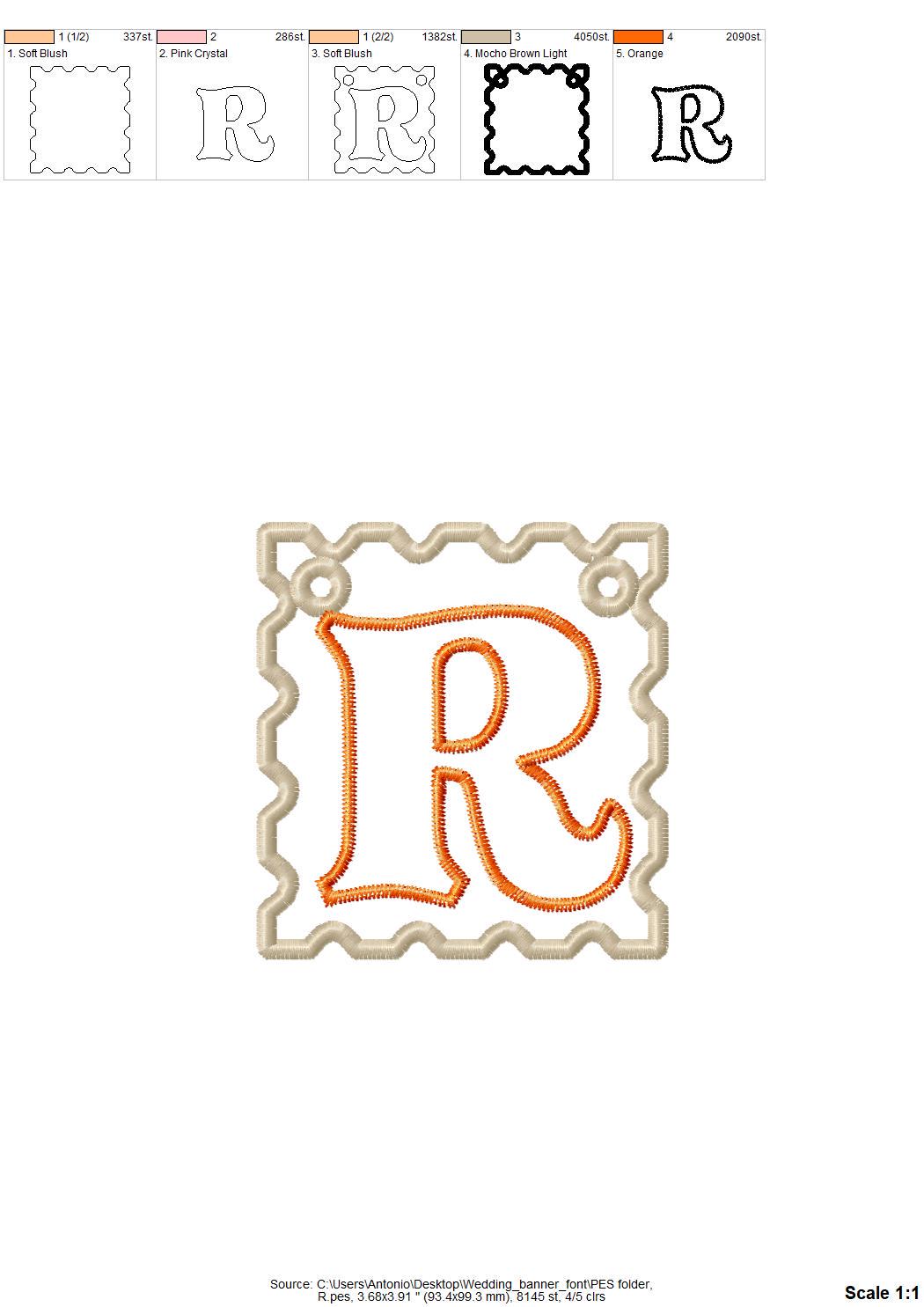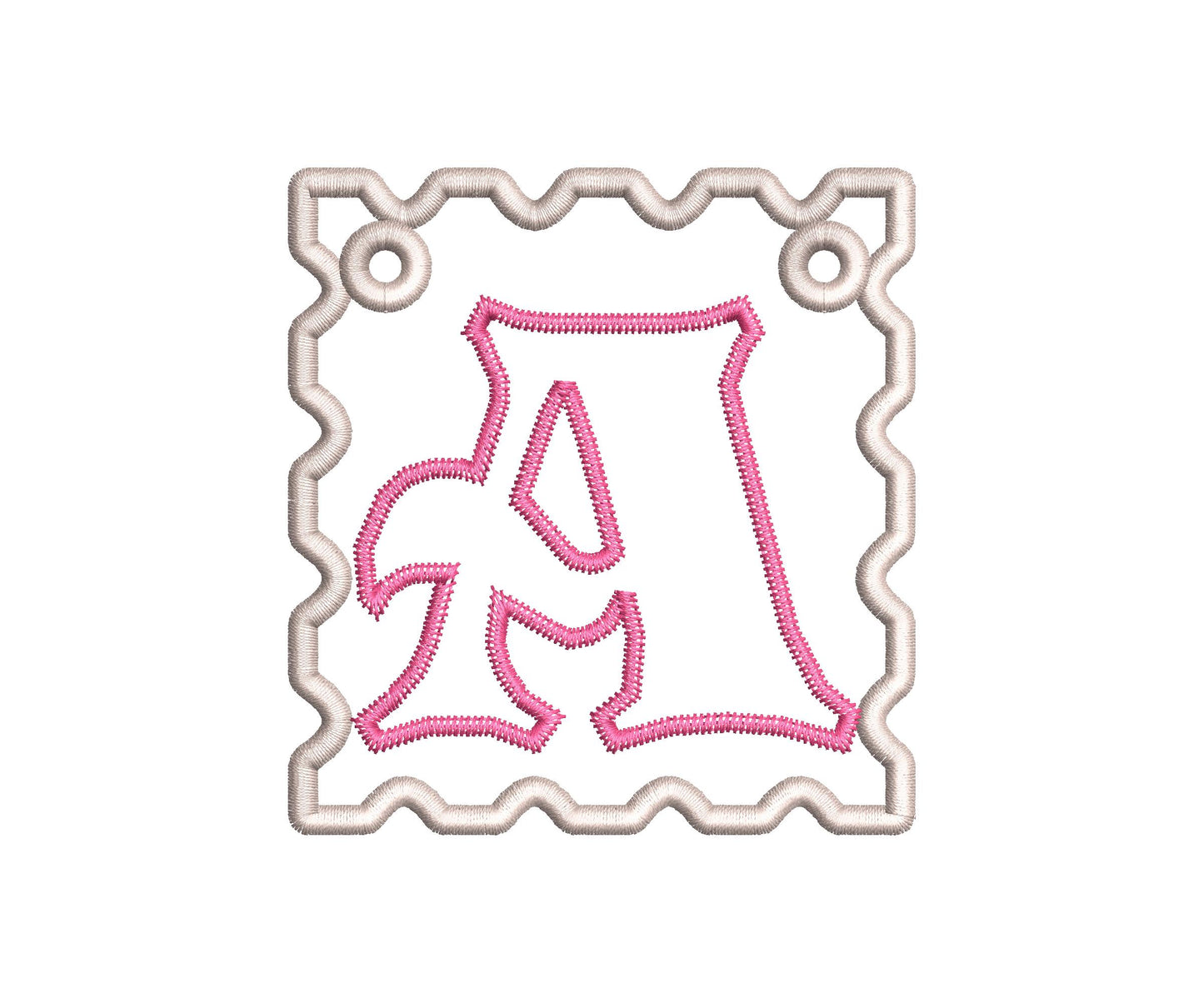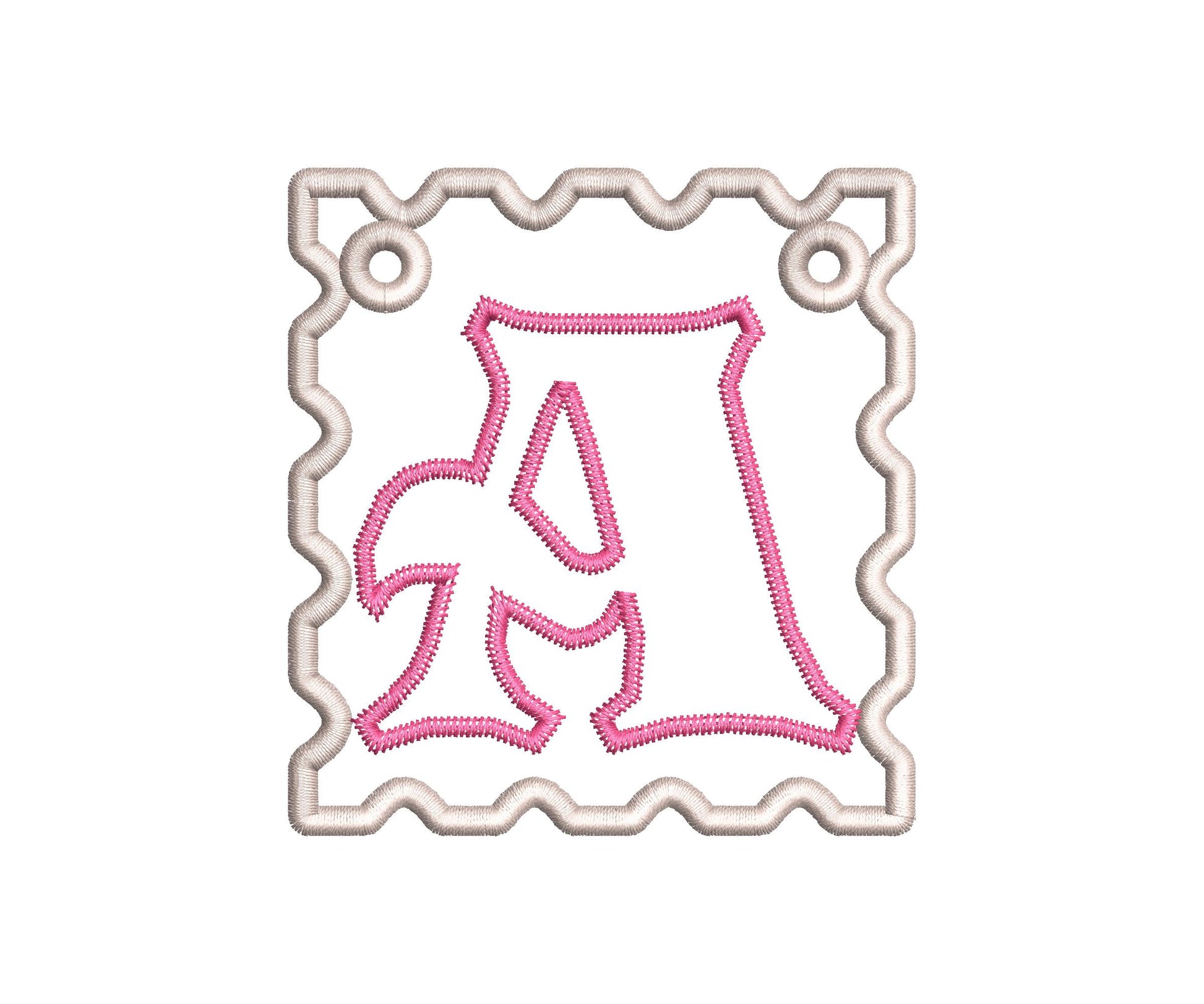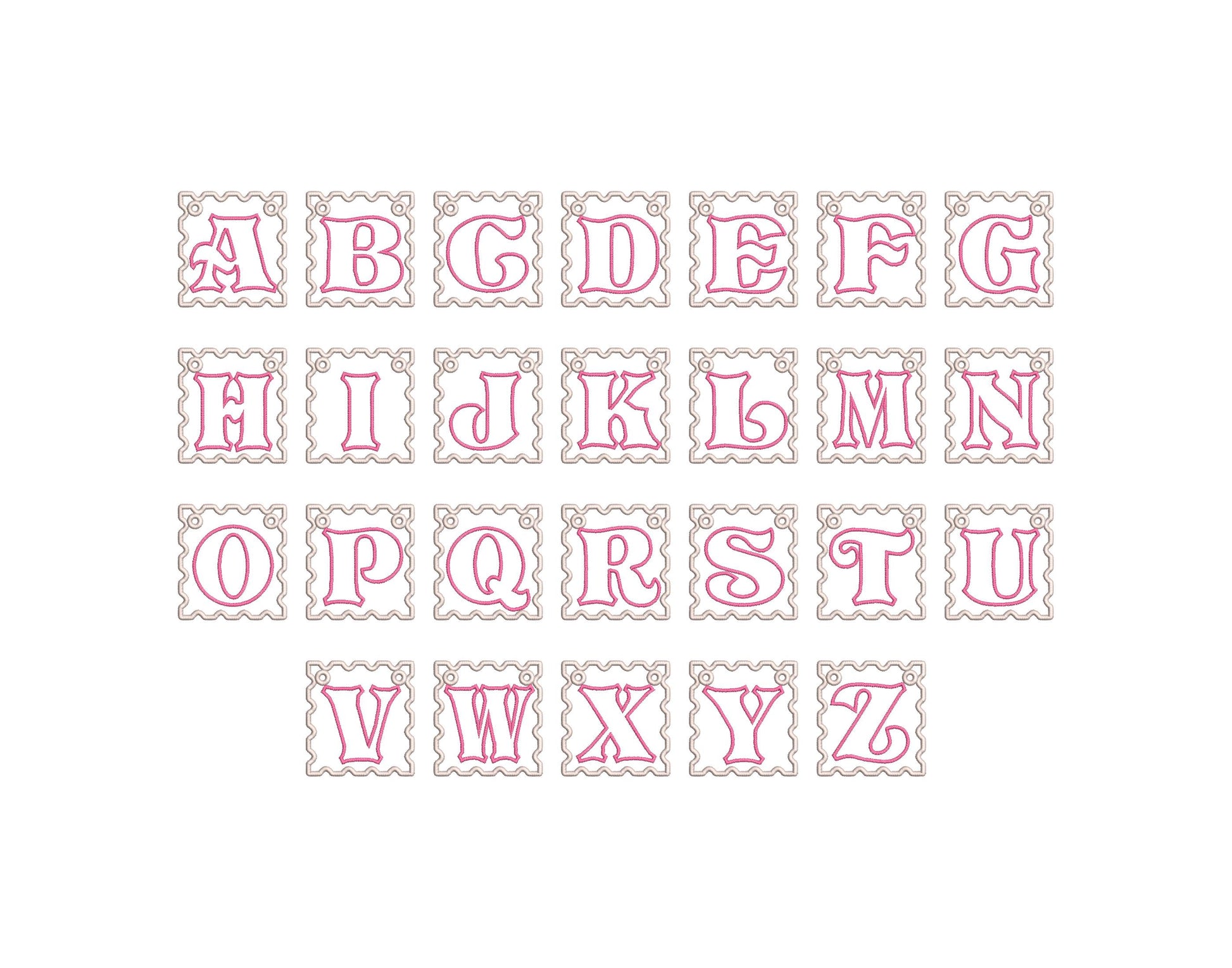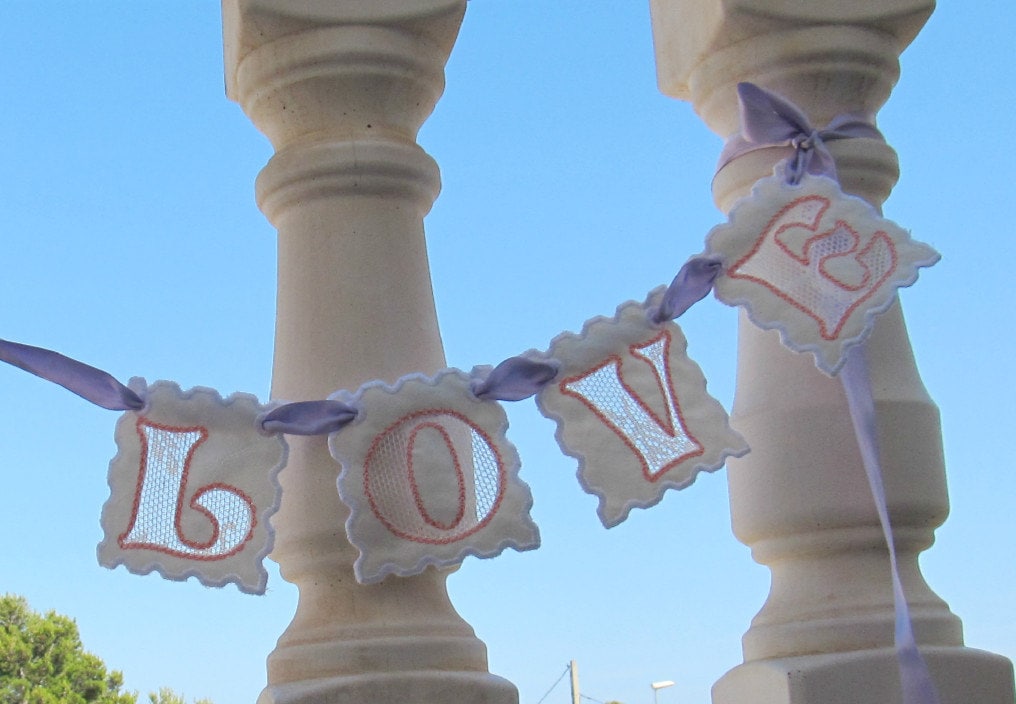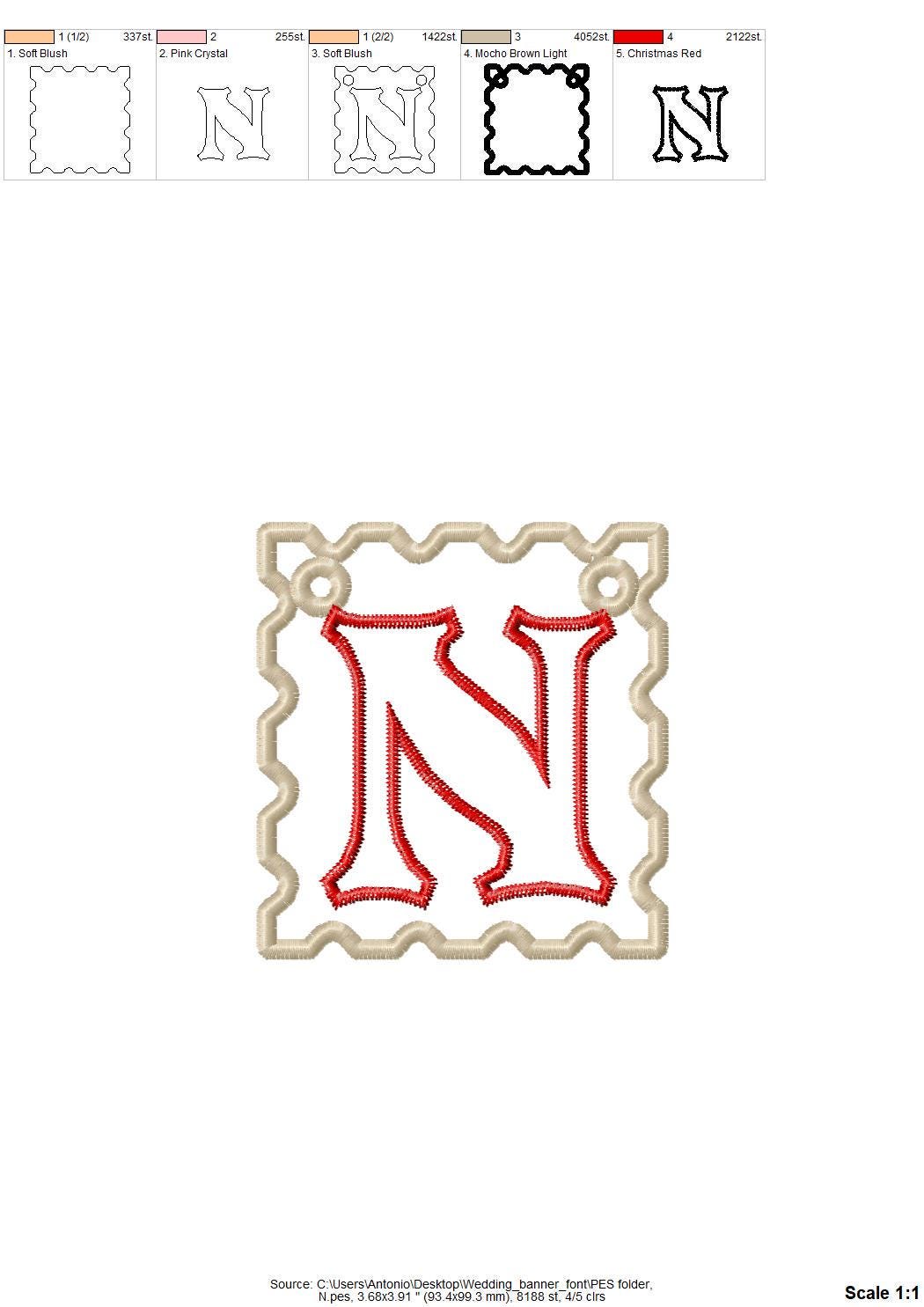
Wedding Lace Banner Set Letters A-Z in the Hoop ITH Project
Every capital letter from A to Z sits on a two-sided lace banner at 4 inches. They are quick and easy to make.
- Lace banners with letters A to Z
- Two-sided, made in the hoop
- 4 in each